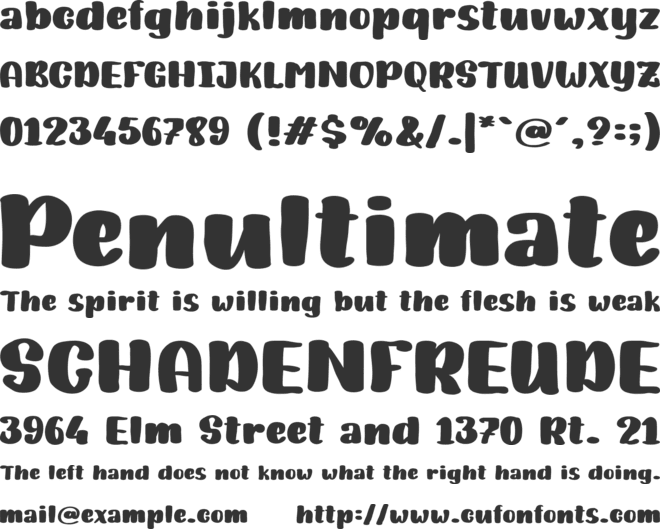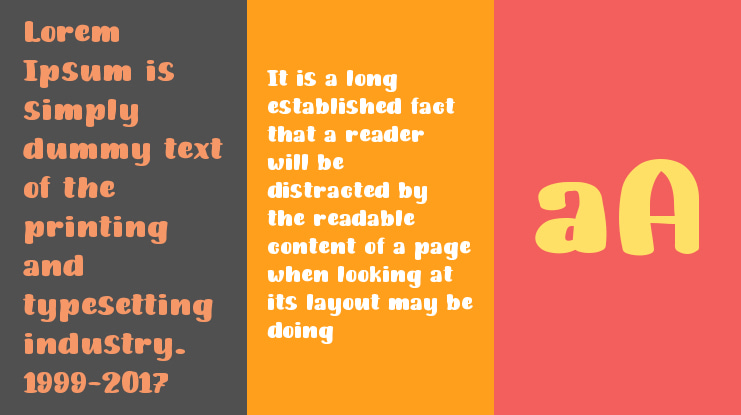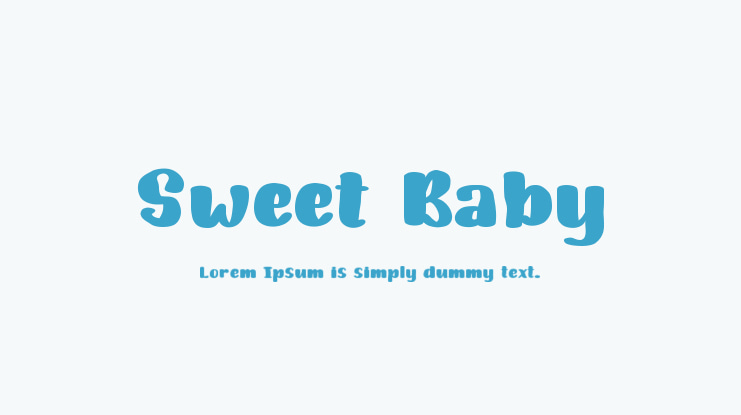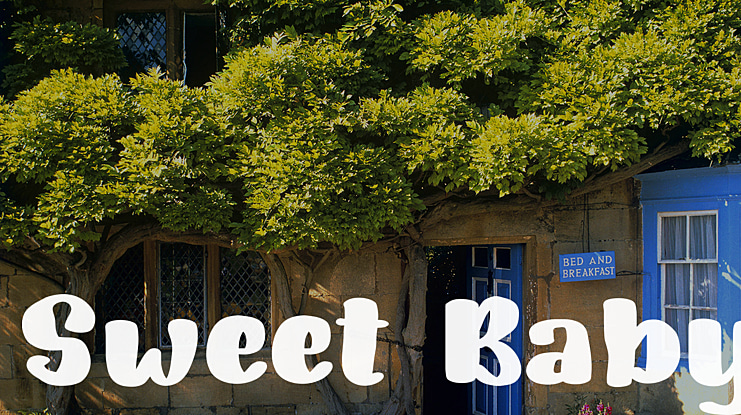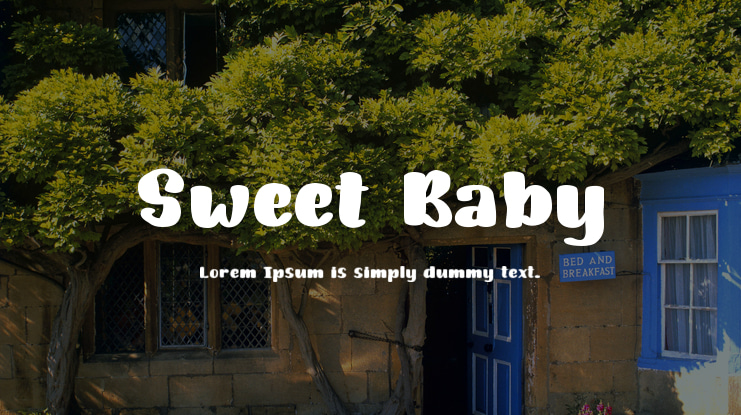
Sweet Baby Font
Introducing a new cute bold handwritten font. All node was cleaned in fairly natural shape. This font will nice for logo, title, subtitle,T-shirt, Mug, etc.
Font Features:
- Have 282 glyphs, supported to all Latin and Eastern Europe characters. - All node was cleaned in fairly natural shape, so it good for cut machine.. - Less stress with no alternate characters, standard letter already cute and fun.